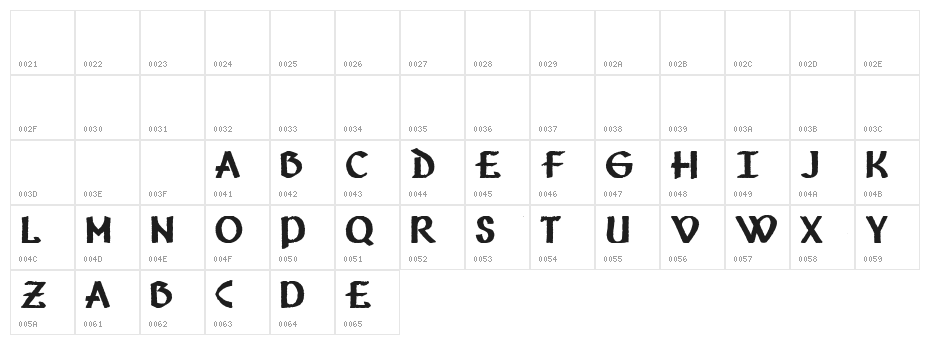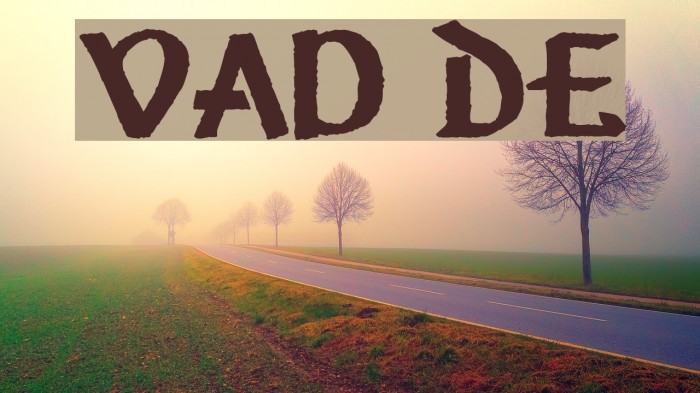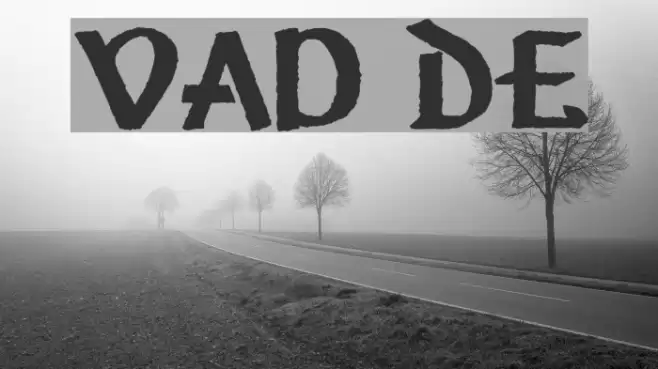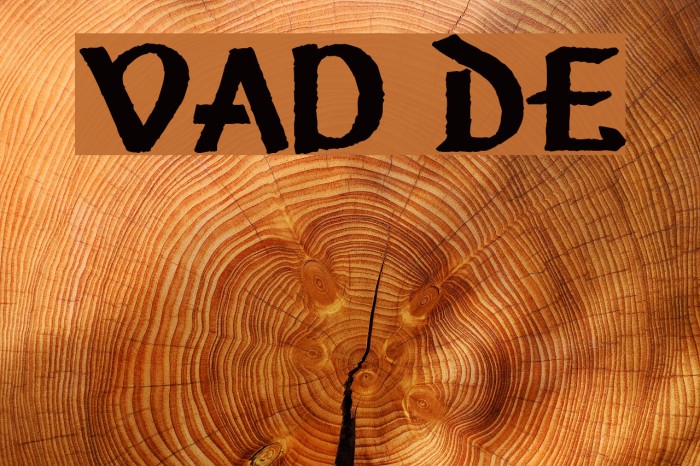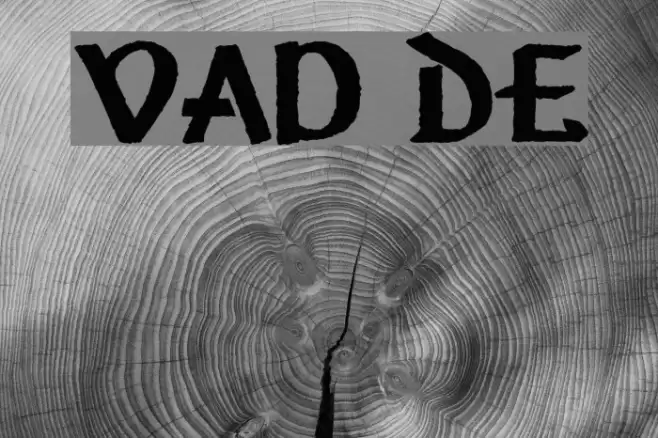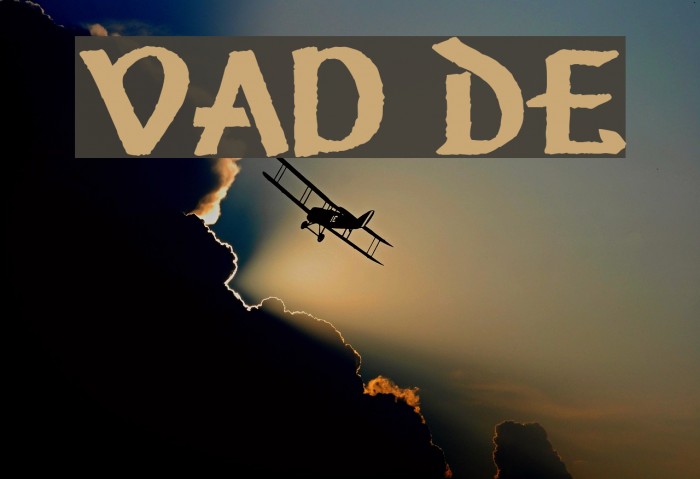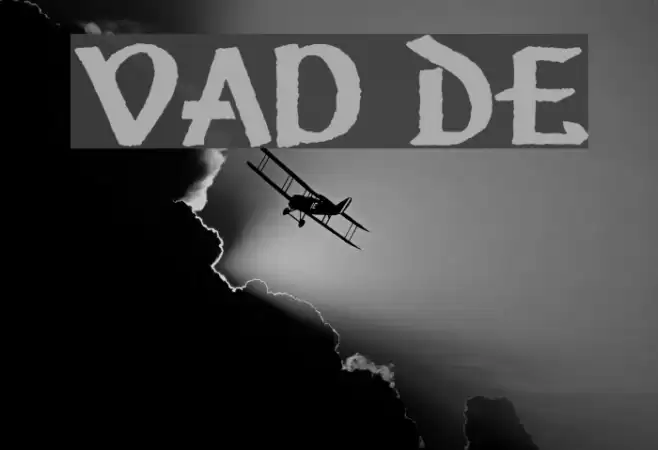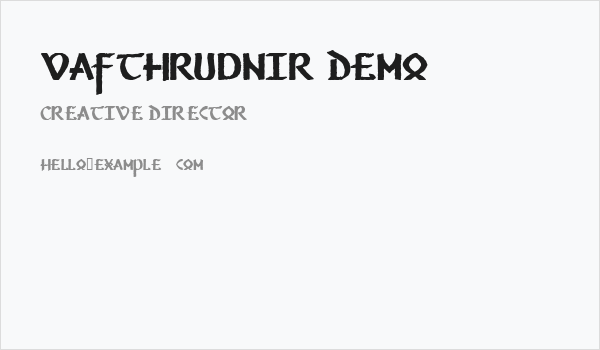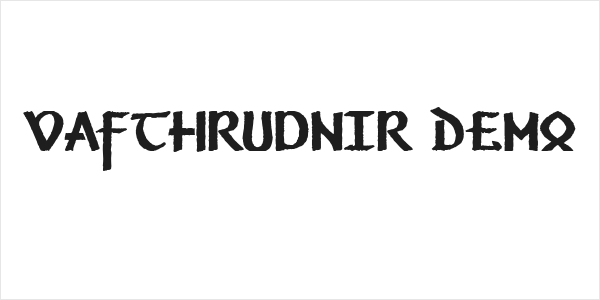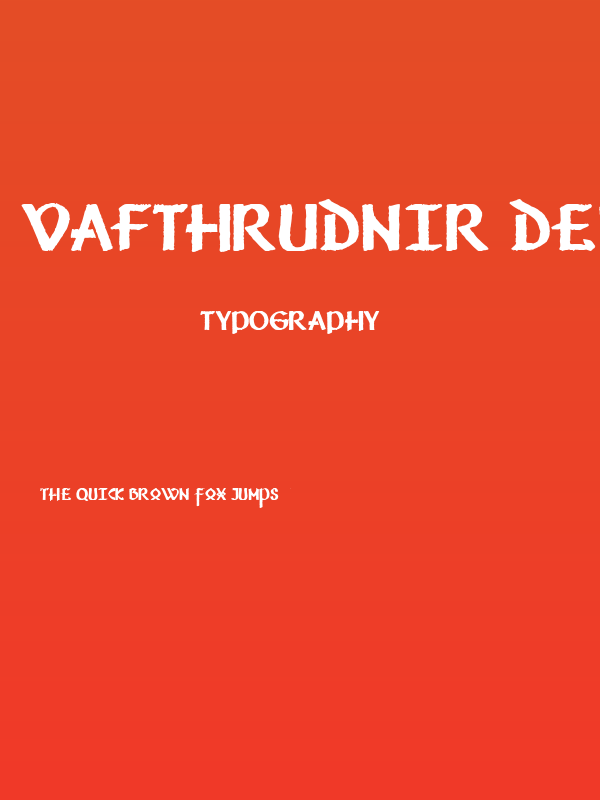
Vafthrudnir Demo Font
Vafthrudnir Demo Description
This font features a bold and striking design with a medieval flair, characterized by sharp, angular lines and a slightly distressed appearance. The uppercase letters are particularly prominent, with unique embellishments that give each character a distinct personality. The font's style is reminiscent of ancient runes or inscriptions, making it ideal for projects that require a historical or fantasy theme. The overall appearance is both rugged and artistic, with a handcrafted feel that adds to its charm. The characters are evenly spaced, ensuring readability while maintaining the font's decorative nature.
| Overall Style | Vintage |
| Proposed Projects | Ideal for fantasy book covers, historical event posters, themed video games, and medieval-themed branding. |